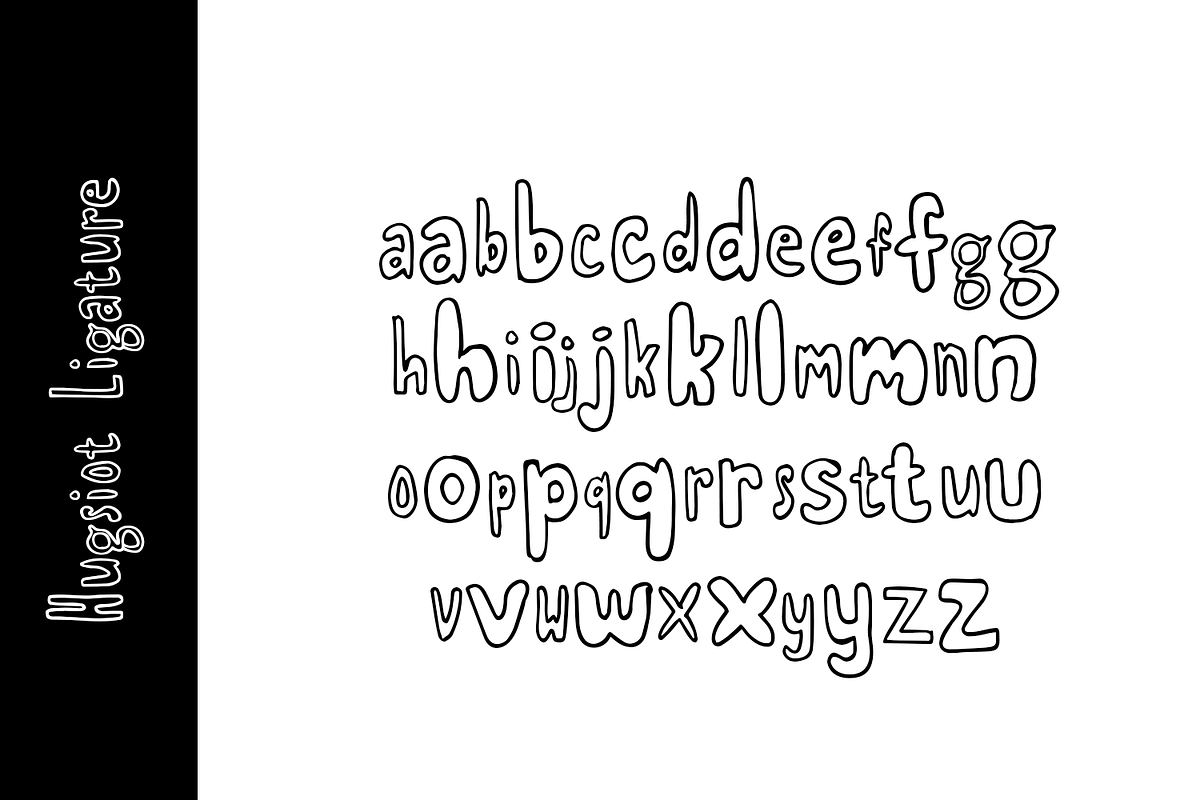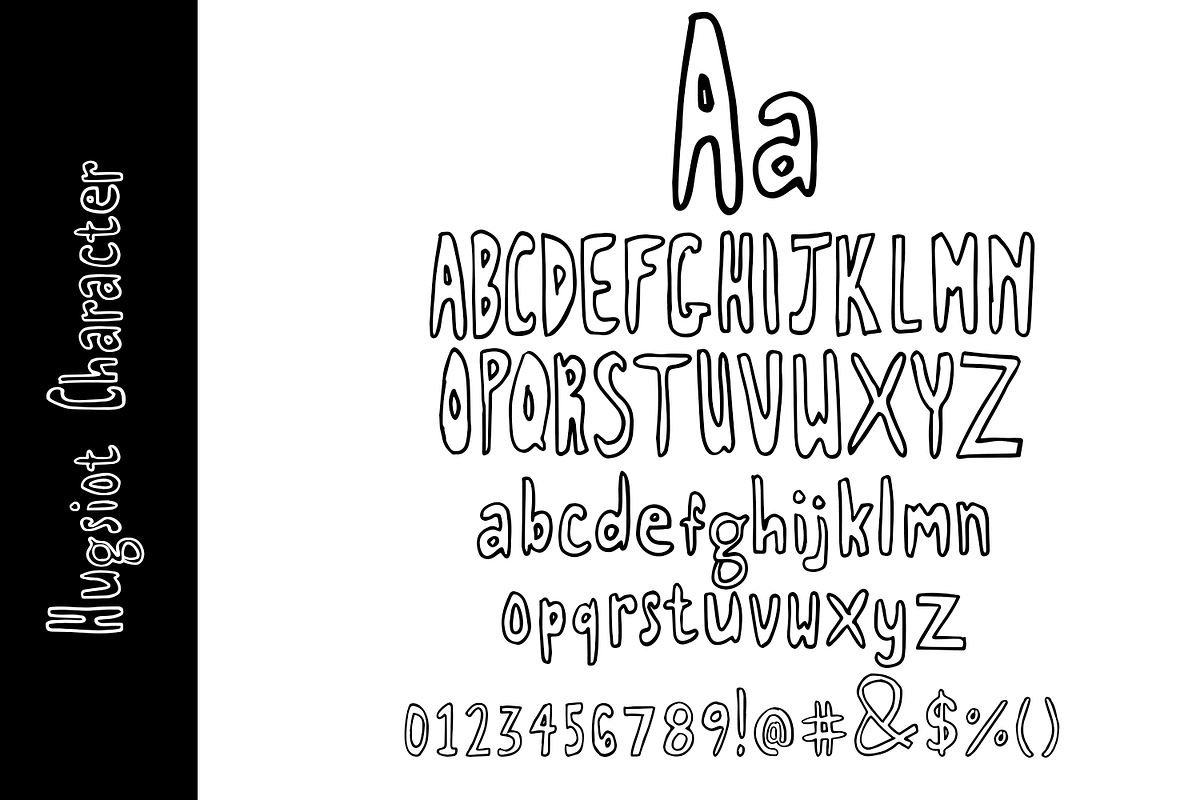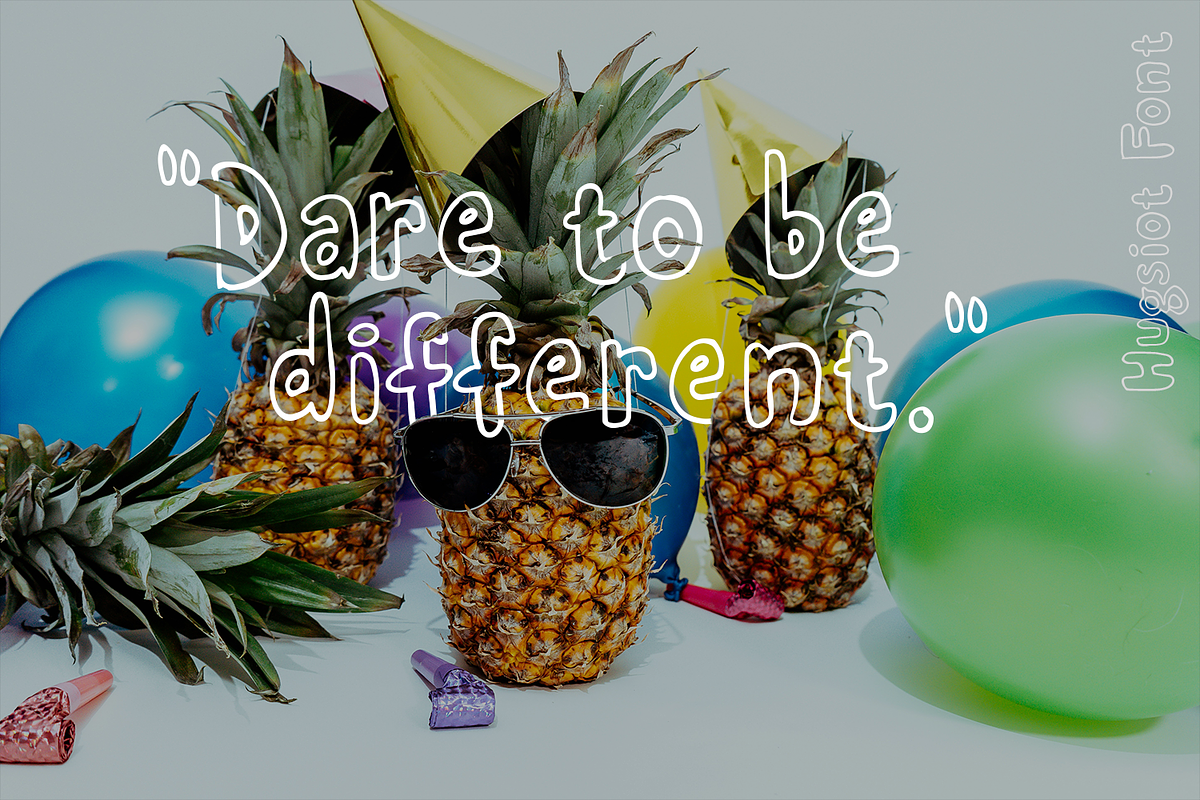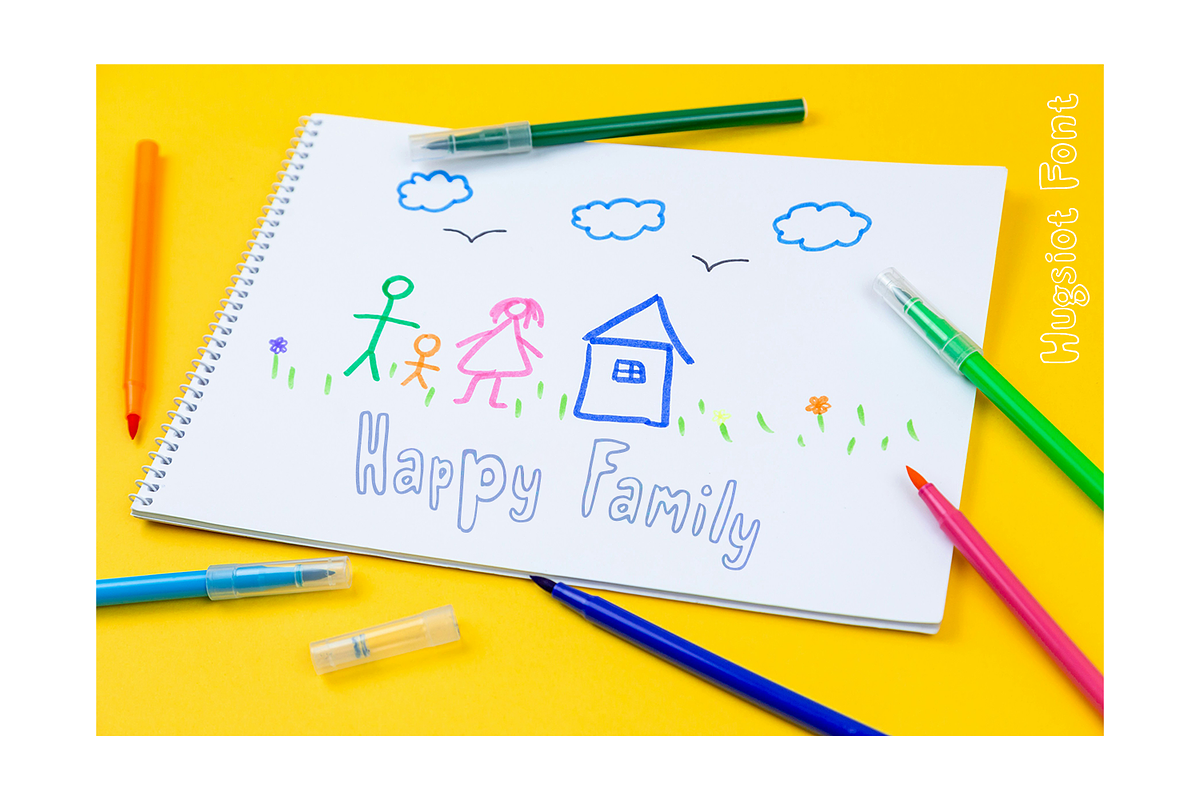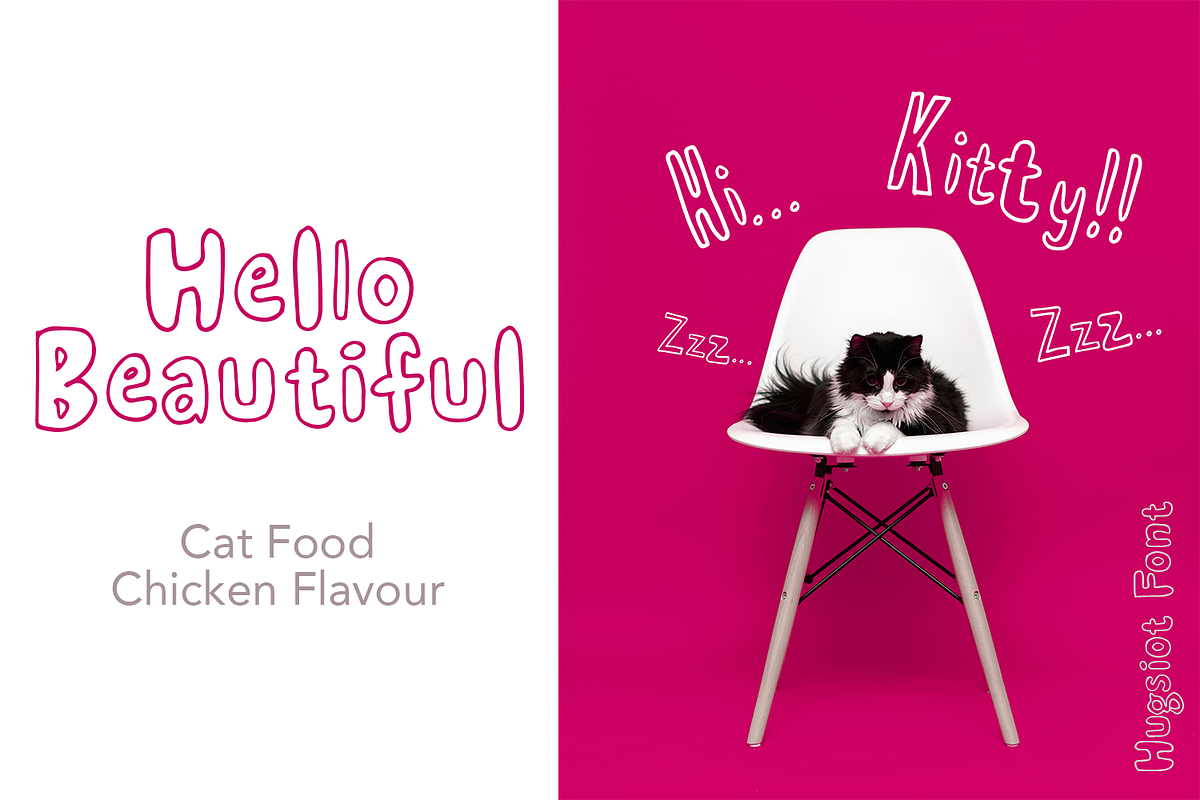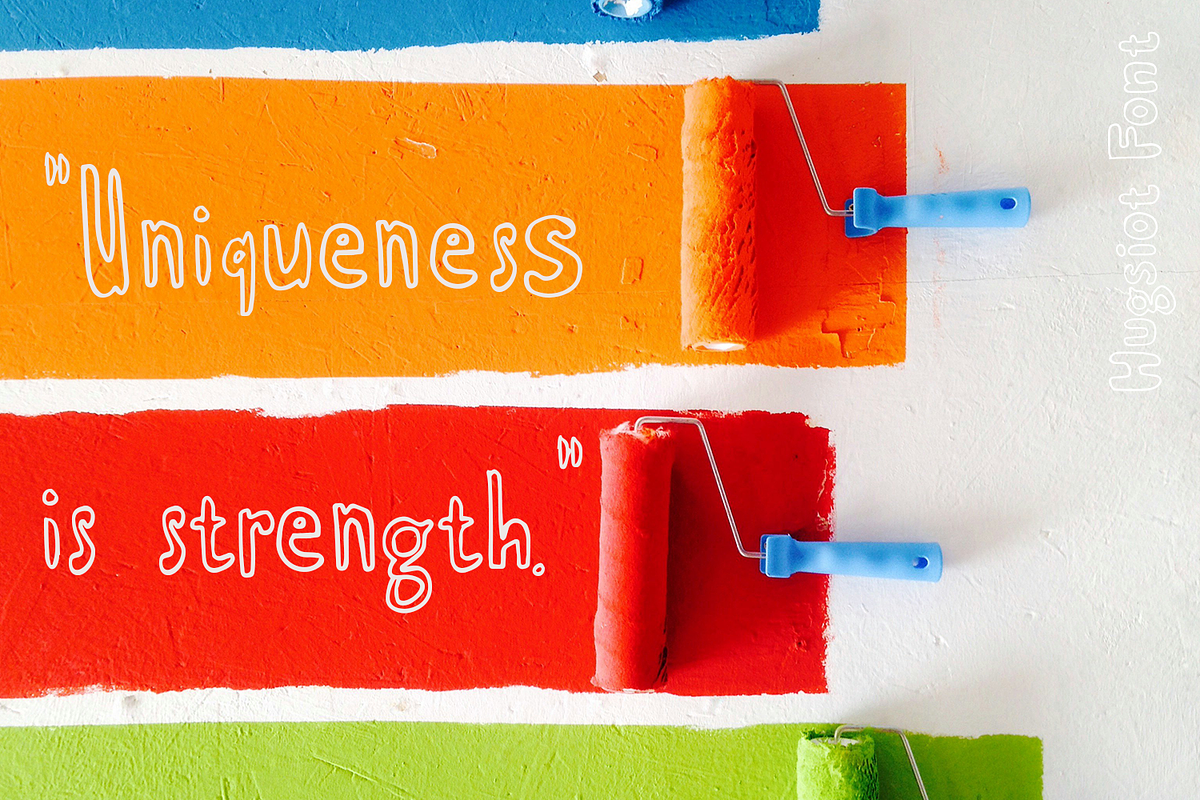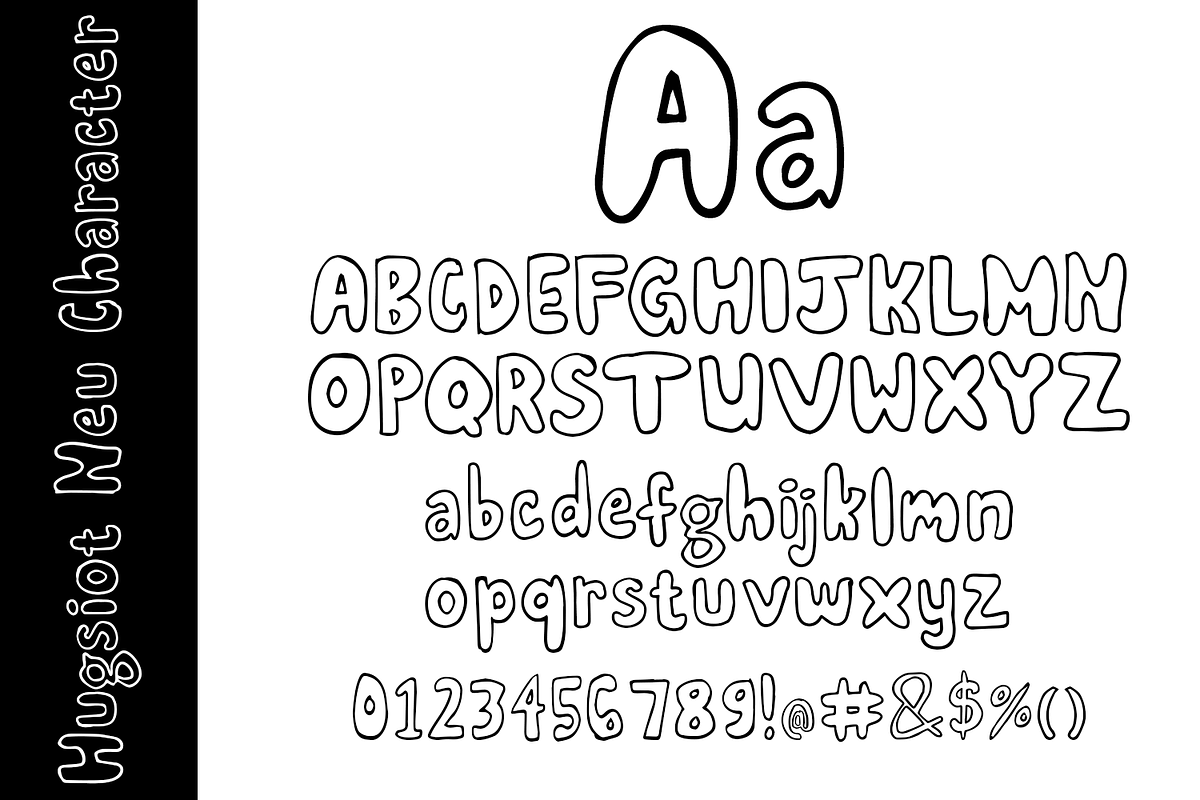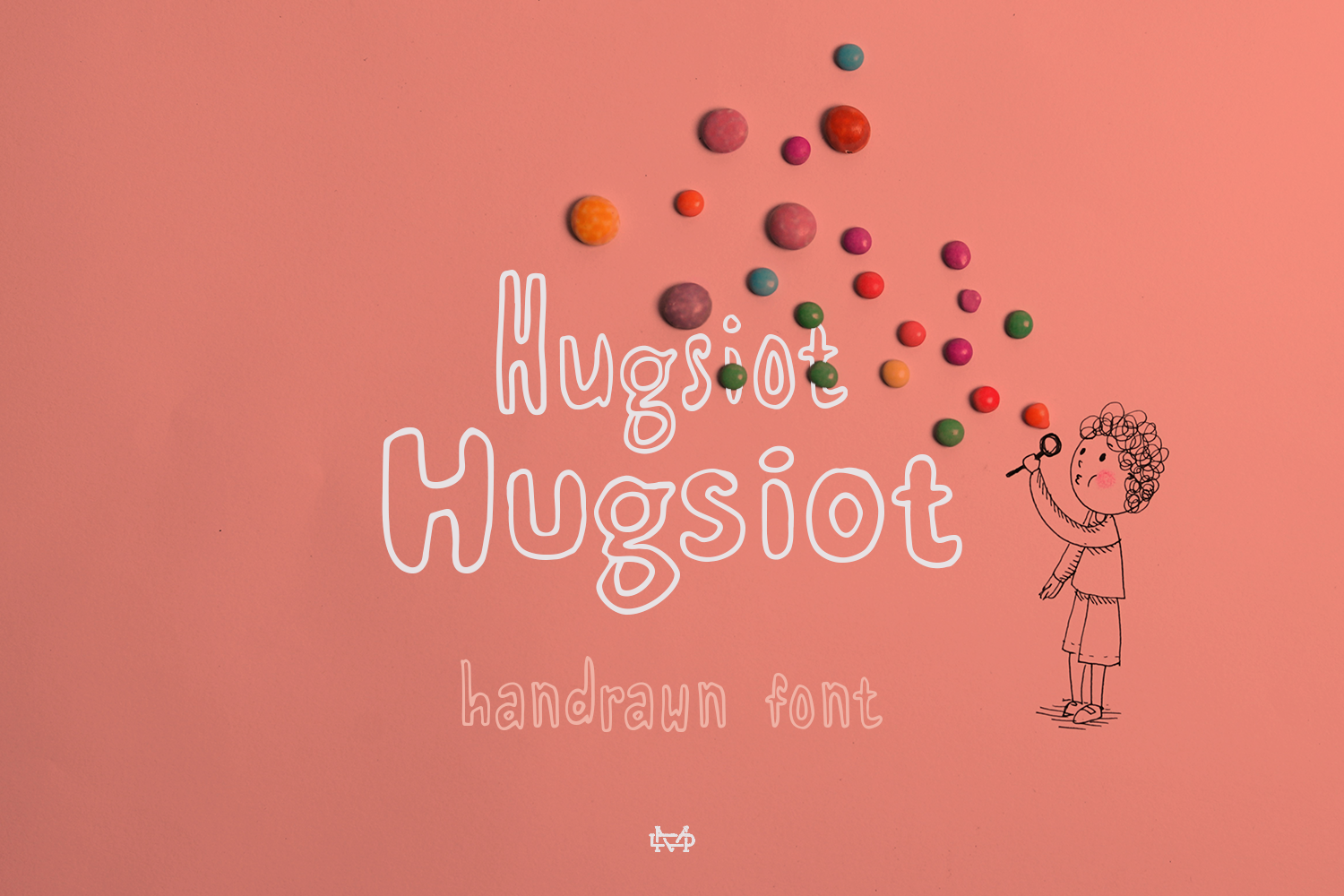
Hugsiot Hand Drawn Font
Hugsiot and Hugsiot Neu is an outline hand drawn font come with two style includes ligatures to make everything look natural. This font perfect for poster design, book covers, merchandise, fashion campaigns, newsletters, branding, advertising, magazines, greeting cards, album covers, and quote designs and more.
- International Glyphs
- ligature